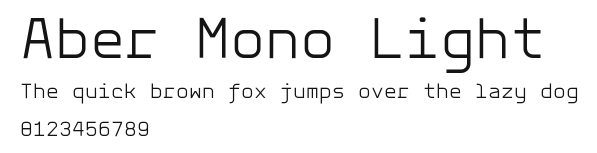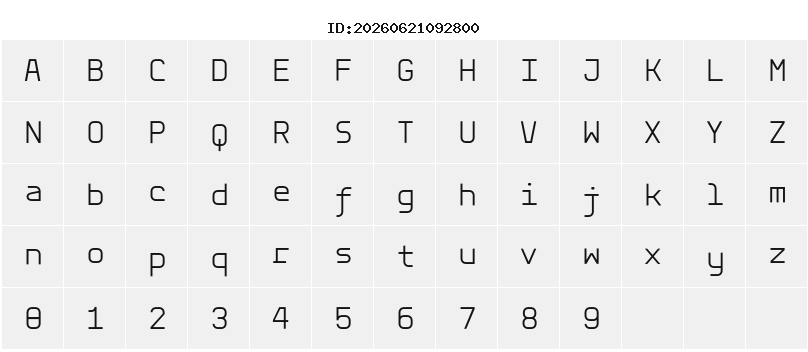
• Font Name: Aber Mono Light
• Full Font Name: Aber Mono Light
• Designer: Tom Robin Karlsson
About Aber Mono Light.otf
Aber Mono Light.otf is a modern, elegant sans-serif font designed for ultimate readability and visual harmony. Perfect for branding, headlines, web design, and print materials.